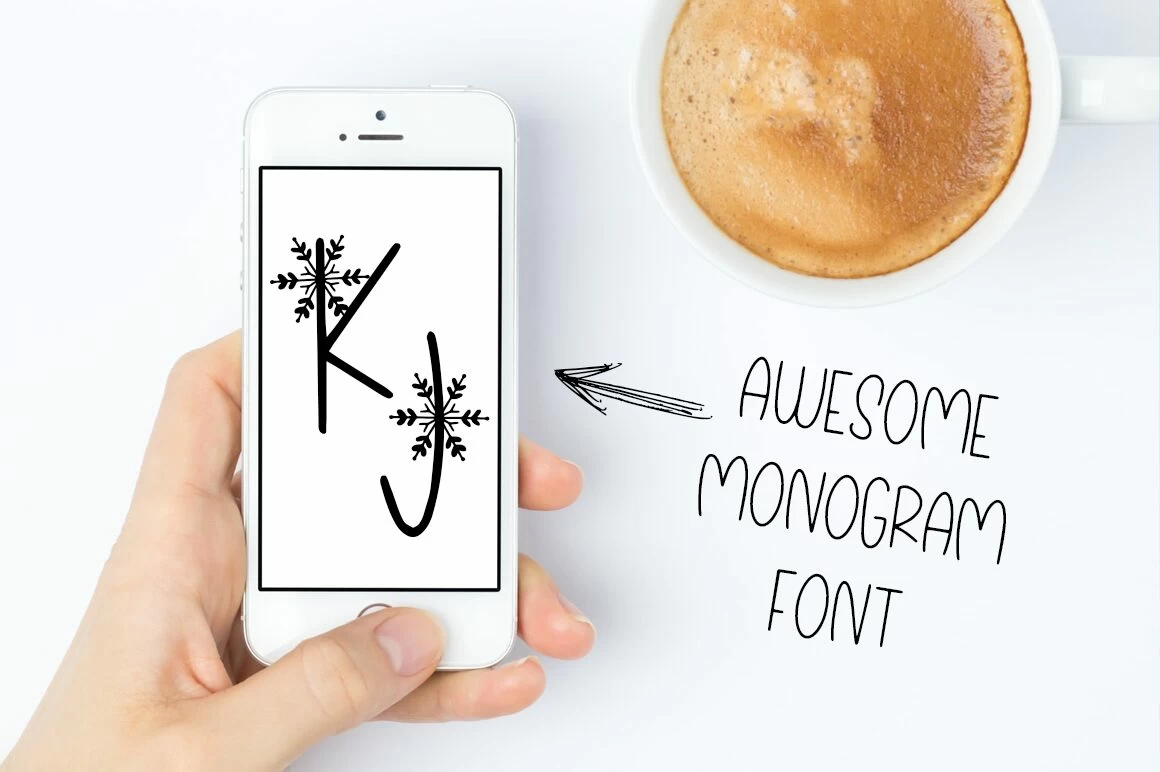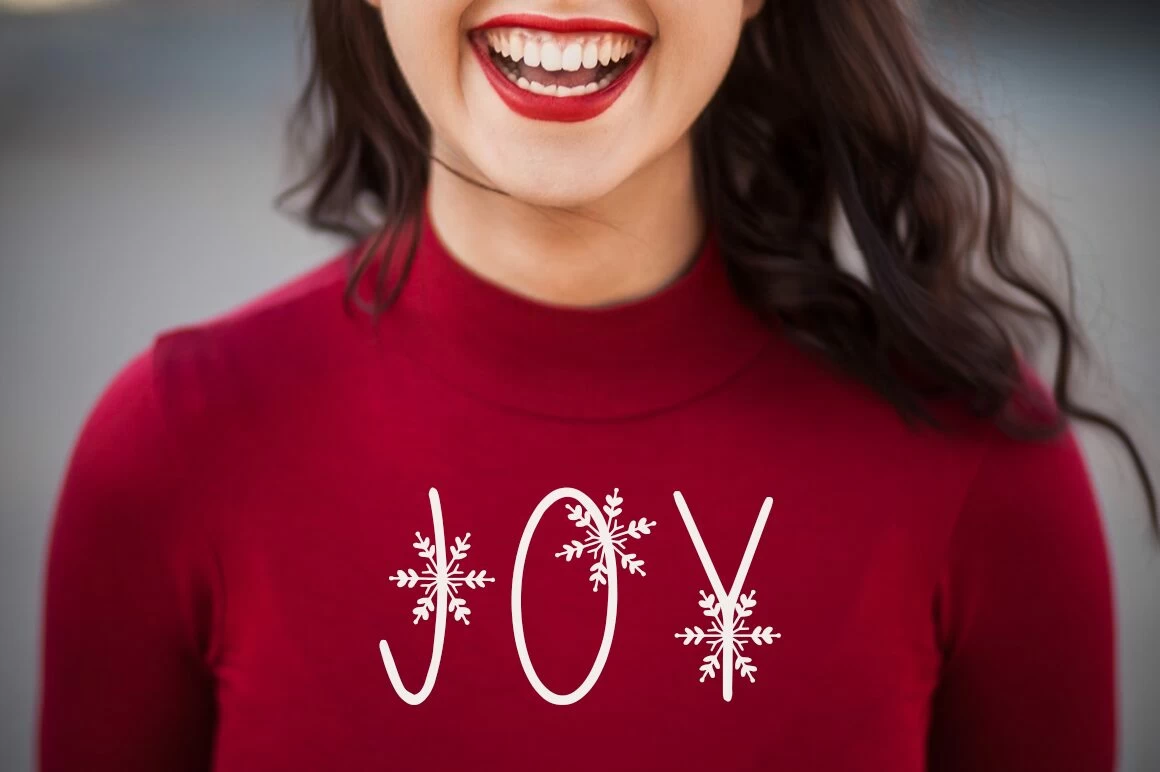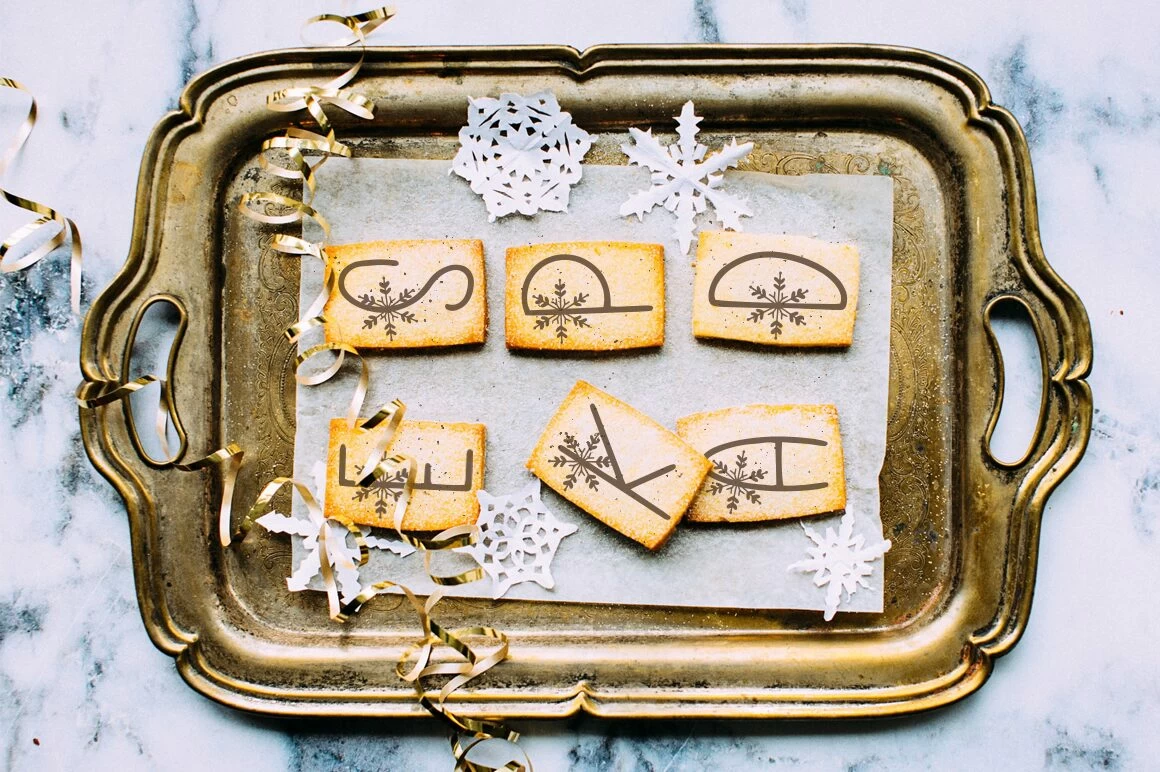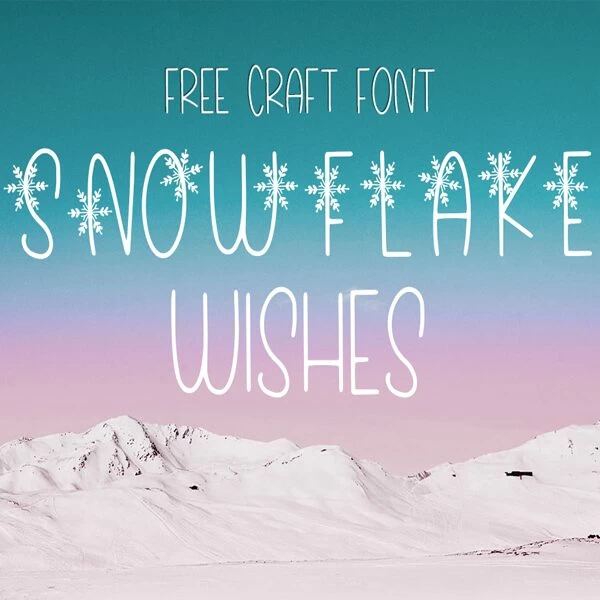
Free Font: Snowflake Wishes
SO SO EXCITED to introduce my very first CRAFT FONT called Snowflake Wishes!!! If you remember last month I announced that I created my first full font – in collaboration with The Hungry Jpeg called Out of Order and now this beautiful new craft font is out for download:
font for craft signs
Getting back the new free snowflake wishes font!
My Favorite cutting machine is the Cricut brand mainly because it cuts with greater detail than other brands. Since this font has delicate snowflakes, the Cricut would do a nice job in cutting vinyl of the thinner sections of this font.Â
It could be used for:
- Craft signs
- Monogram Projects
- Christmas Ornaments
- Stencil making
- Custom T-shirt Design
- Winter Print and Web Design
- And so much more!
-Use Caps for the Snowflakes Letters
-Use Lowercase for Regular Letters